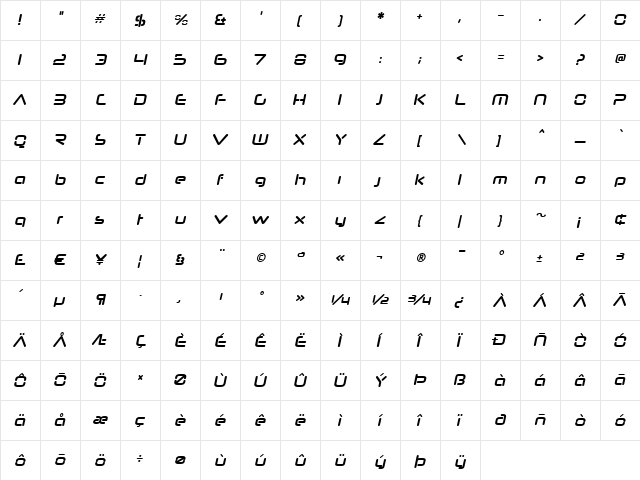
Neuropol Nova Bold Italic Font Preview
Design Context for Neuropol Nova Typeface
Neuropol Nova takes a measured approach to typography — its balanced proportions and neutral character make it a reliable workhorse for both digital and print work. The dynamic lean of this cut emphasises speed and emphasis in any layout. Its bold stroke weight gives it real presence on the page.
Pro Tip: Try Neuropol Nova for annotation and caption copy alongside an upright companion — the contrast in angle creates a dynamic but ordered typographic system.